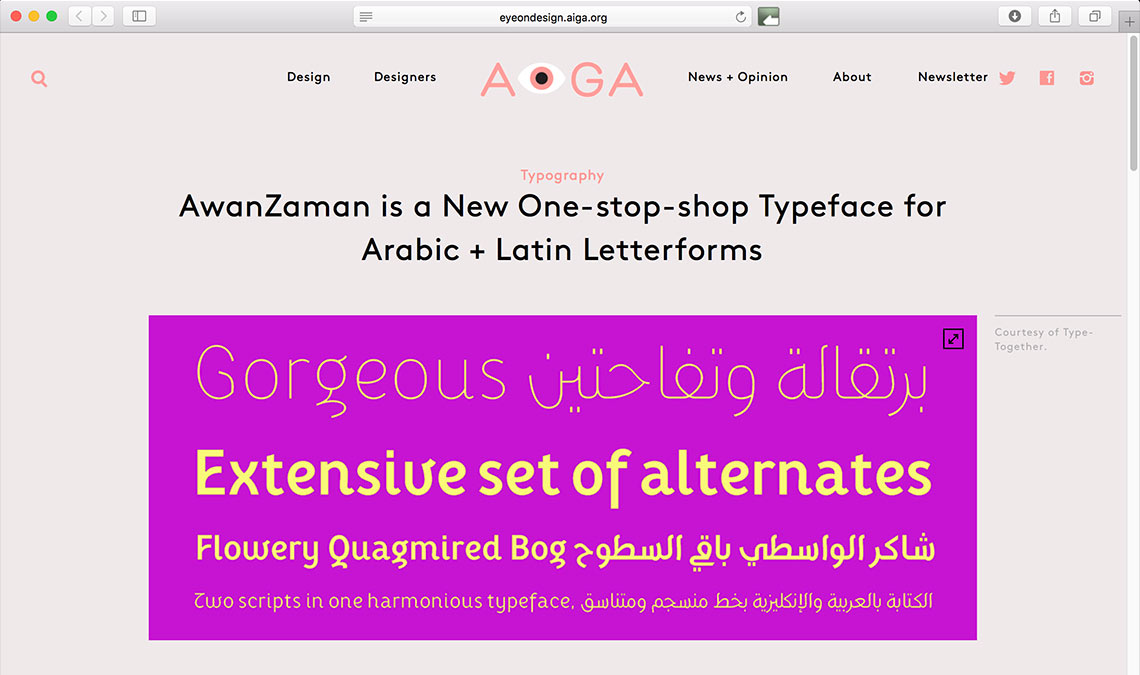
AwanZaman in Aiga’s blog
AwanZaman, a geometric Arabic cleverly and harmoniously advanced into Latin, featured in Aiga‘s blog.
AwanZaman, designed by Juliet Shen & Dr Mamoun Sakkal, was featured in Aiga’s blog, Eye on Design. The article explains the context of AwanZaman, which was developed as a custom typeface for a Kuwaiti newspaper looking to modernize its type treatments, along with the possible uses, other matching typefaces, and other special features.